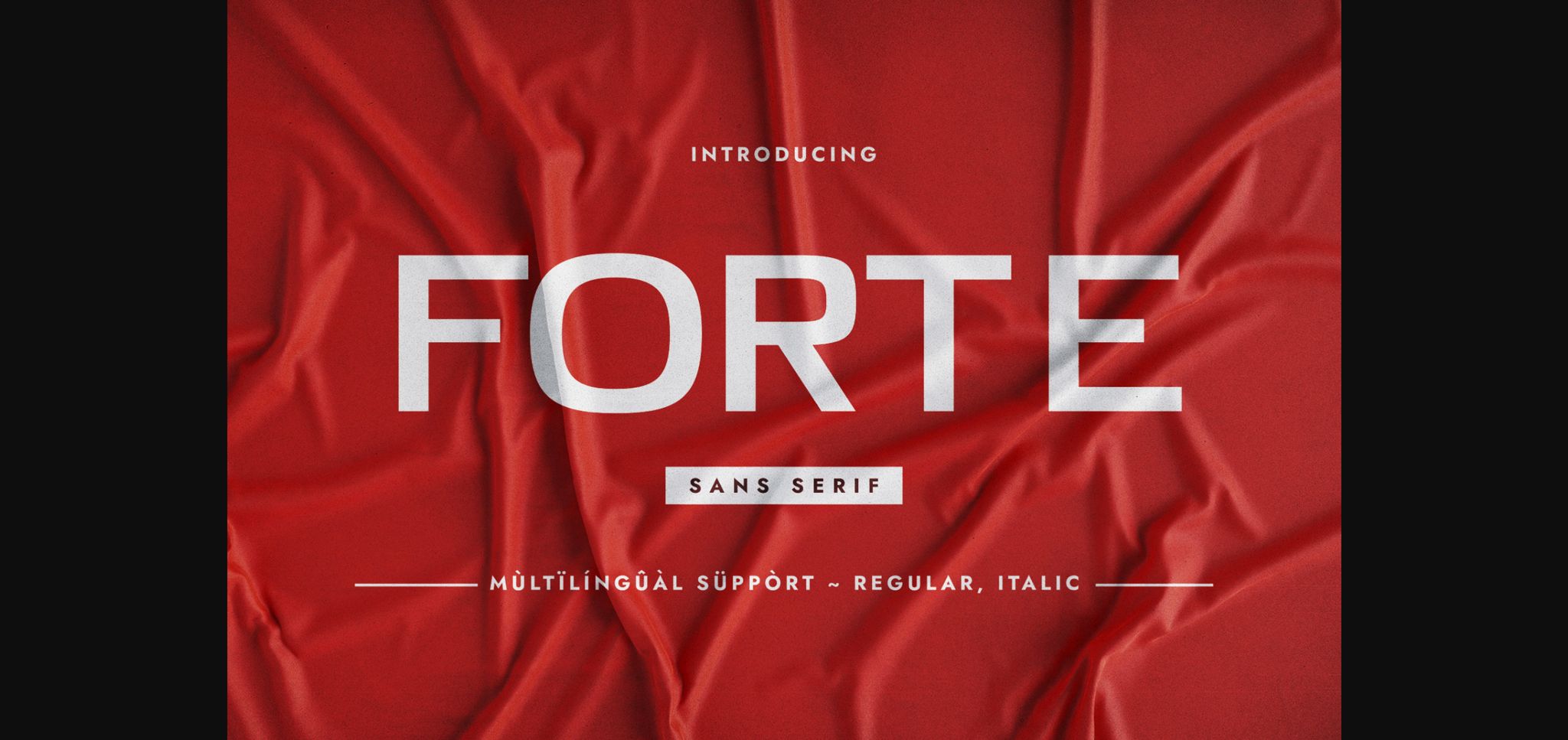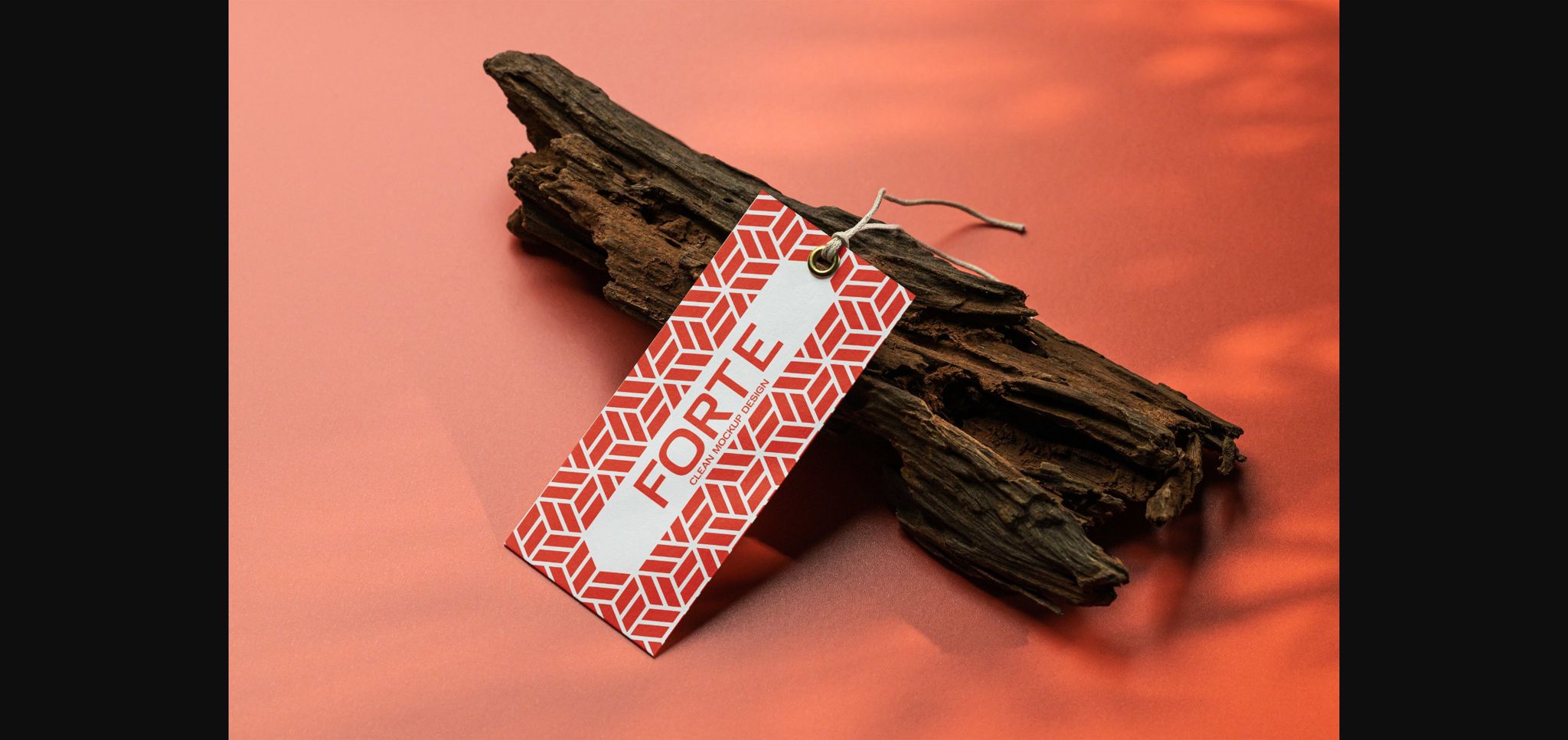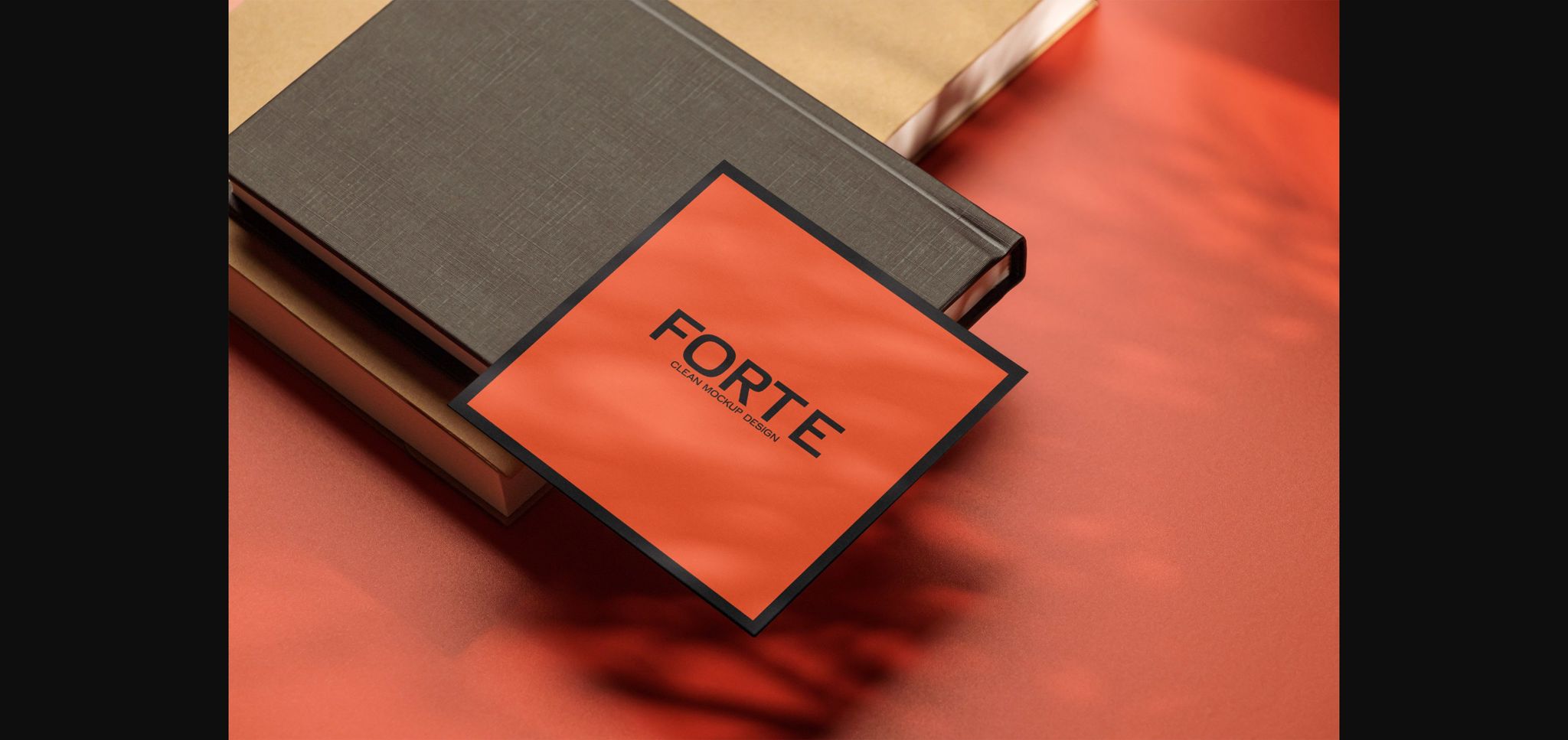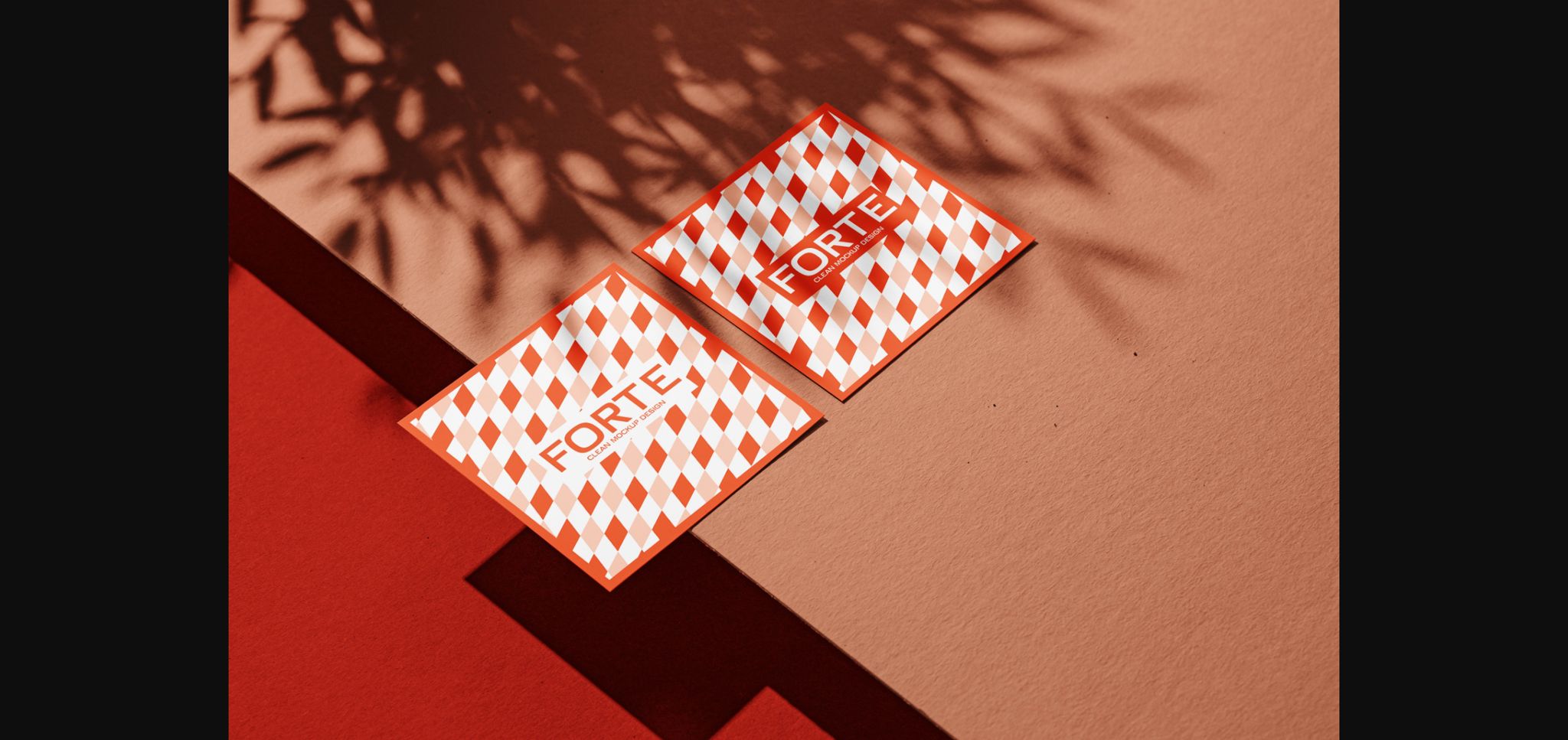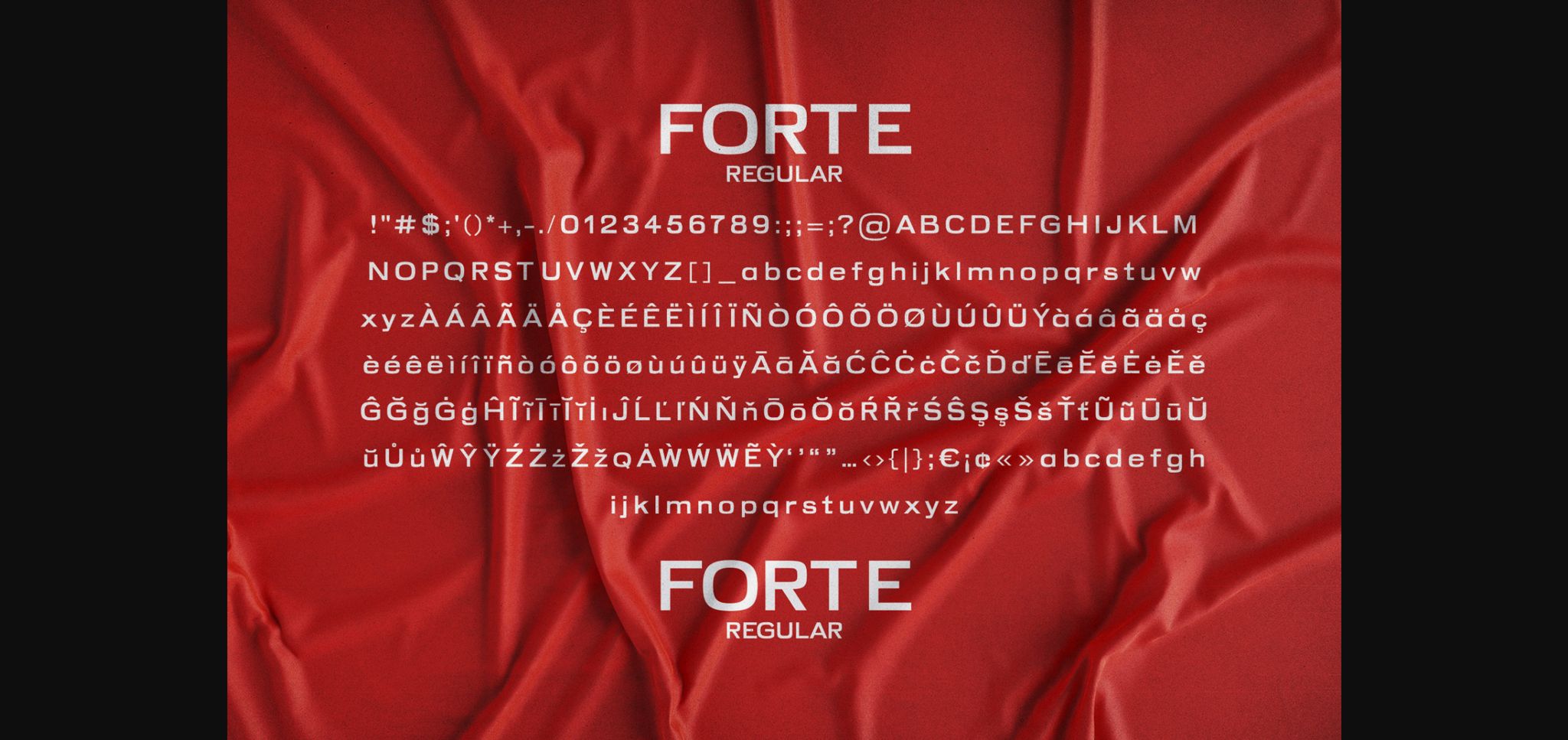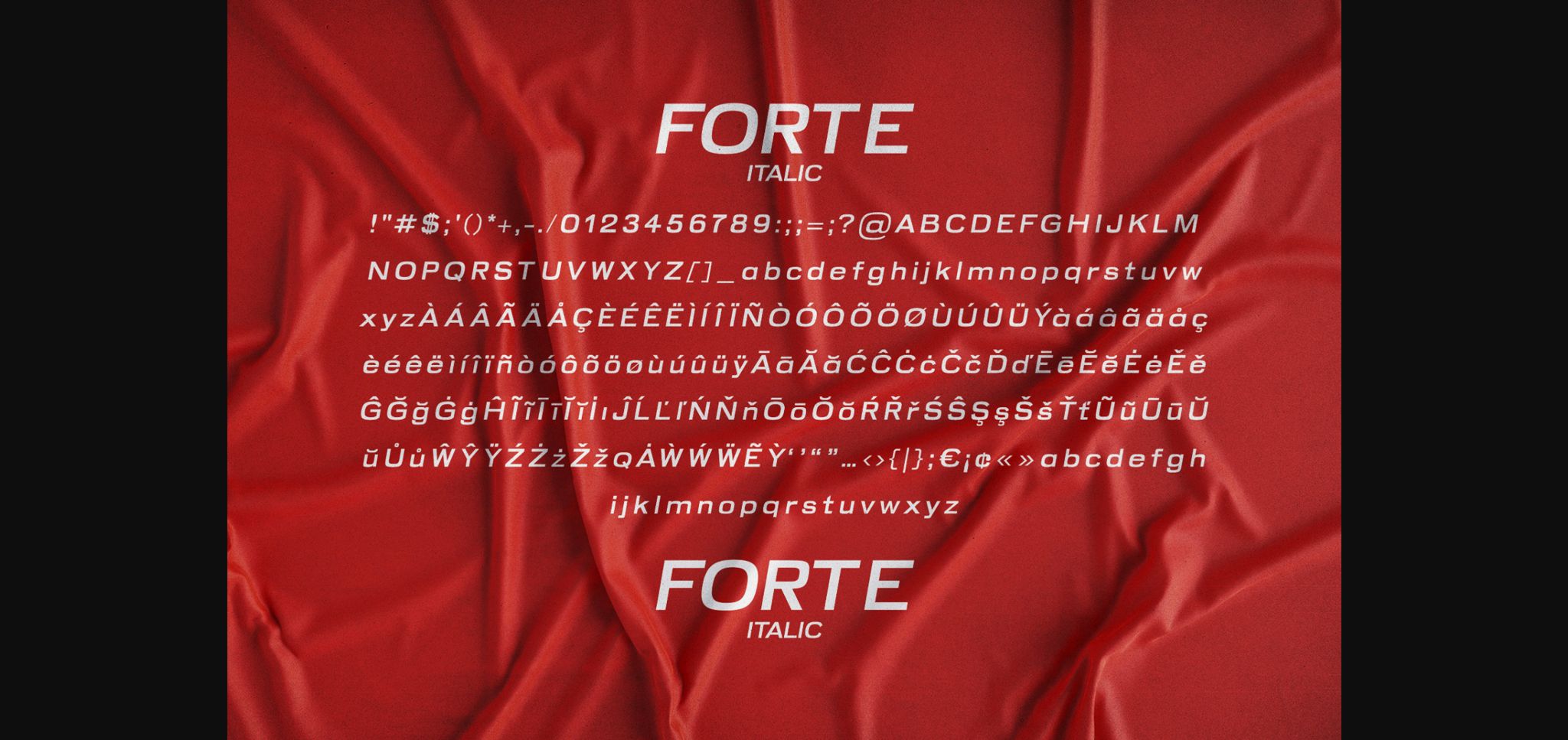
About Forte Font
Forte is a simple and extended fat sans serif typeface. It can be used to design a wide range of design topics such as brochures, posters, cosmetics, packaging, branding, website banners, magazine covers, video game covers, movie titles, social media banners and posts, logos, and many more!